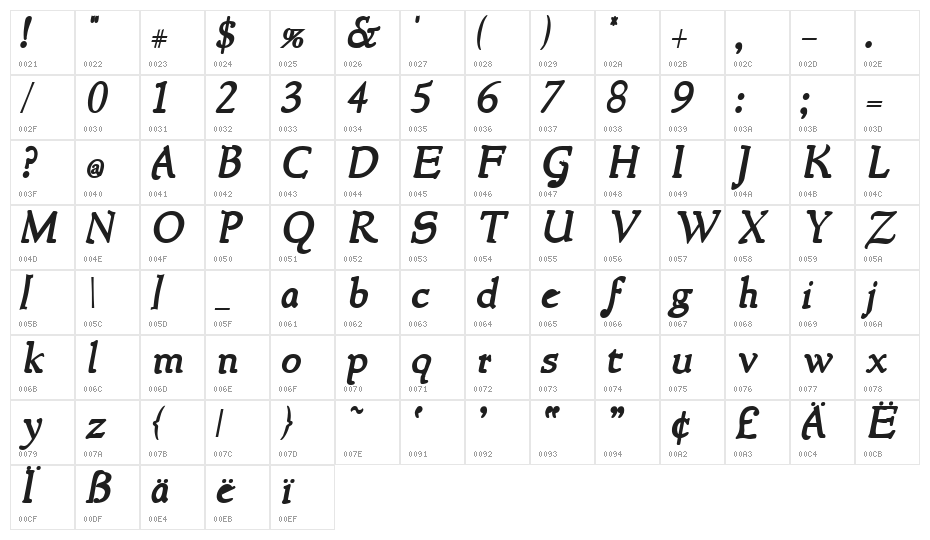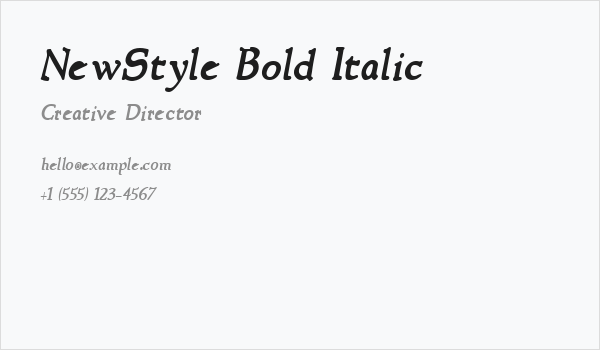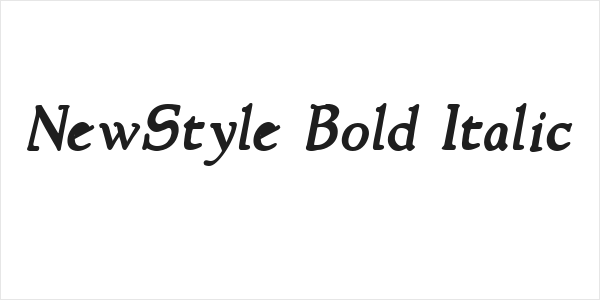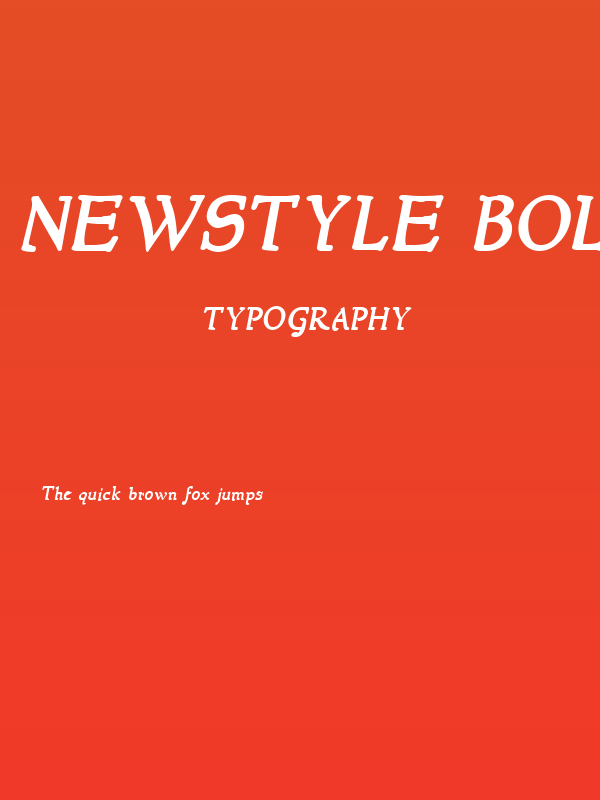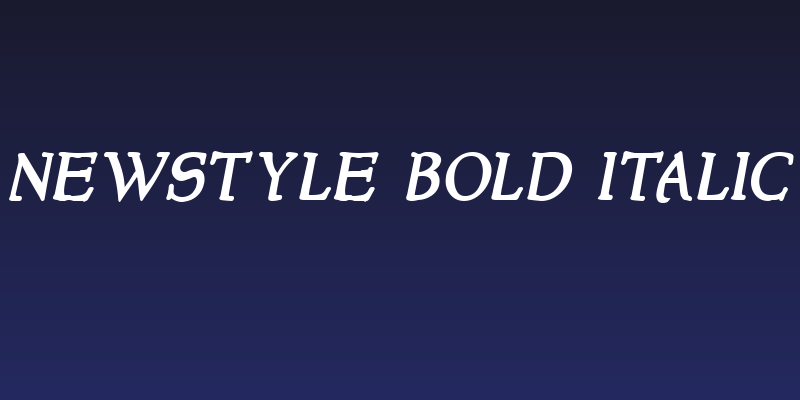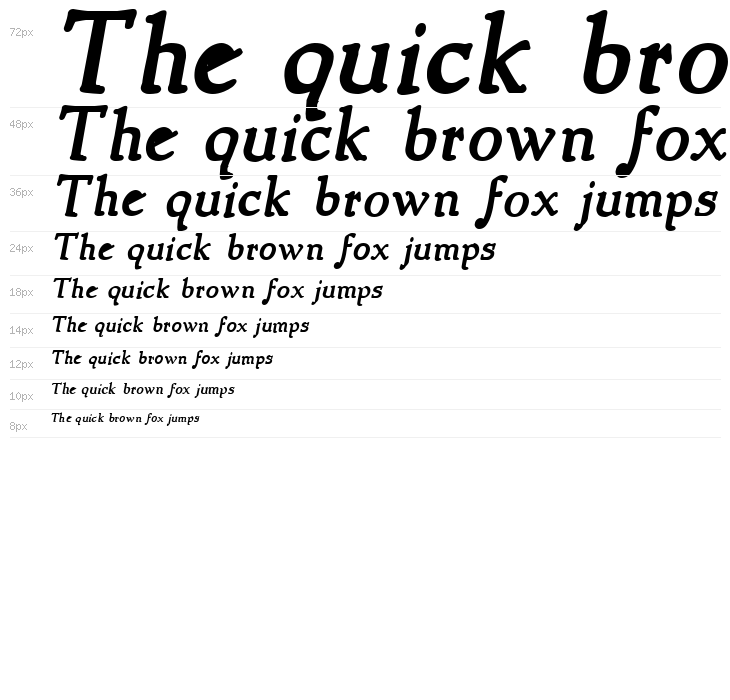
NewStyle Bold Italic Font
NewStyle Bold Italic Description
This font features a bold and italicized style, offering a dynamic and modern appearance. The characters are well-defined with a slight slant, adding a sense of movement and elegance. The strokes are thick, providing a strong presence, while the italicization adds a touch of sophistication. The font maintains a consistent weight throughout, ensuring readability and impact. It is suitable for making statements in headlines or titles, where emphasis is required. The overall design is clean and contemporary, making it versatile for various design projects.
| Proposed Projects | Ideal for headlines, branding, advertising, and editorial design. |